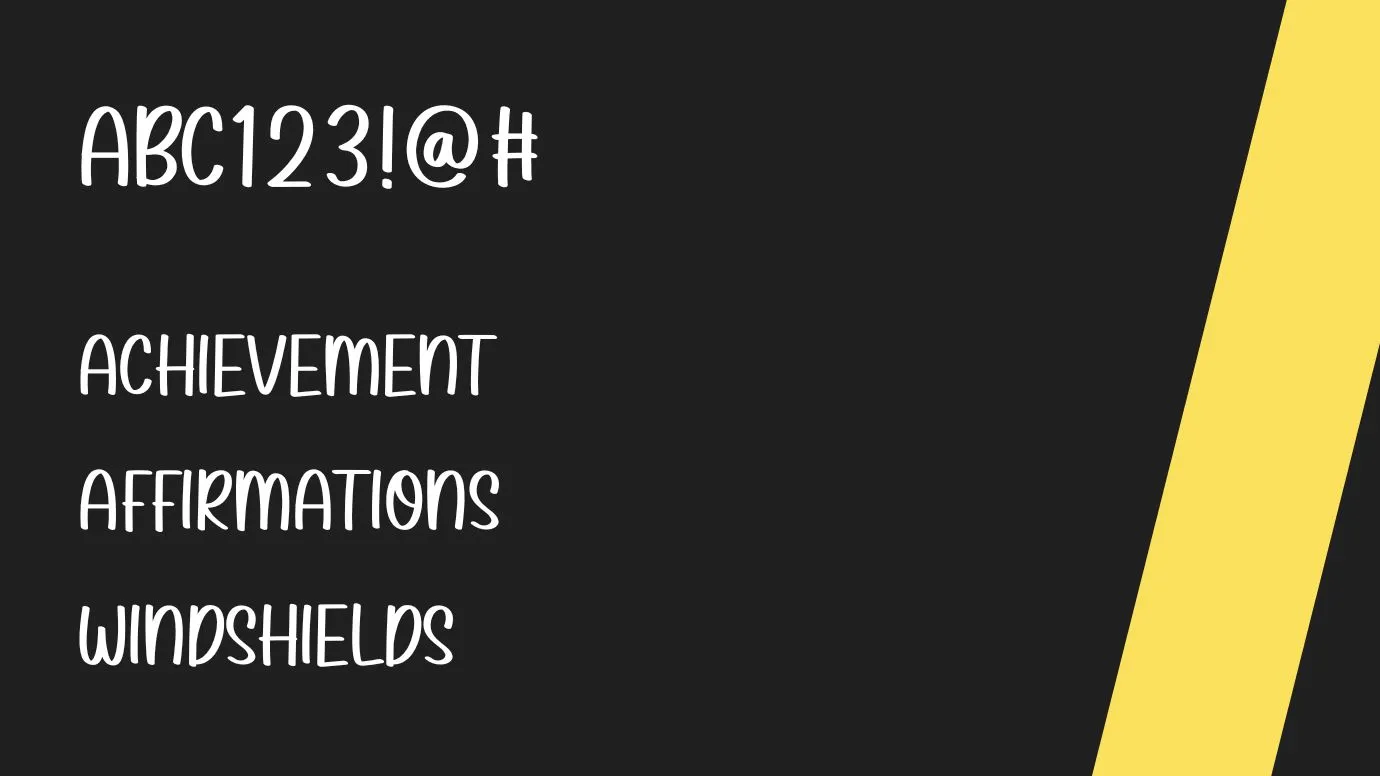
Little Panda Font is a handwritten font that embodies fun, quirkiness, and authenticity. The font has been designed by the famous designer Suby Studio. It was released in the year 2020.
The typeface is fashionable and round lettered which will add flare to your personal design project hence a wonderful asset to your font library. It will turn any creative idea into a stand-out because it is neatly crafted and highly detailed.
The typeface has a variety of coded style features to create unique text designs, names, stylish alternates, numerals, ligatures, symbols punctuation to make your designs look more natural and significant. It is perfectly suited for titles, logos, brands, baby products, headlines, greeting cards, stationery design, packaging, magazine, posters, and many more.
The typeface comes with multilingual support and extended Latin base characters that cover most European languages. You can pair this stunning typeface with The Best Smile Font. Both typefaces are cute and quirky, as well as childish handwritten textures.
The handwritten typeface has been created by Suby Studio. It was released in the year 2020. It is an awesome typeface to create new ideas.
- Little Panda Regular
| Name | Little Panda Font |
| Designer | Suby Studio |
Little Panda Font is a handwritten font that embodies fun, quirkiness, and authenticity. The typeface is fashionable and round lettered which will add flare to your personal design.
The handwritten typeface has been created by Suby Studio. It was released in the year 2020. The typeface comes with multilingual support and extended Latin base characters.
Some key features of the typeface include its soft organic curves and extreme legibility. It comes in one single weight that is regular. It comes with a full set of characters.